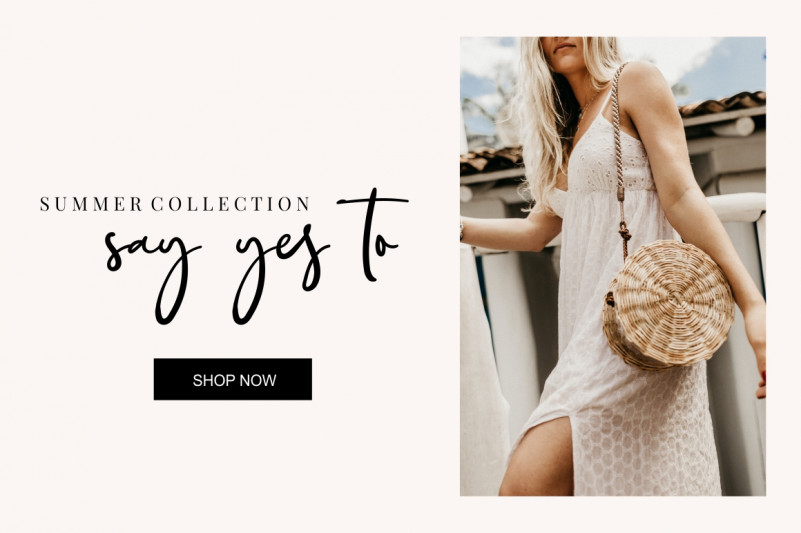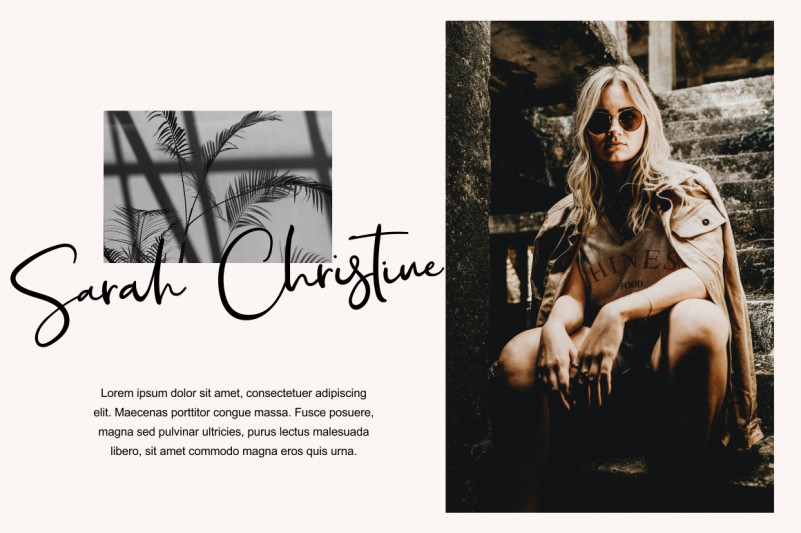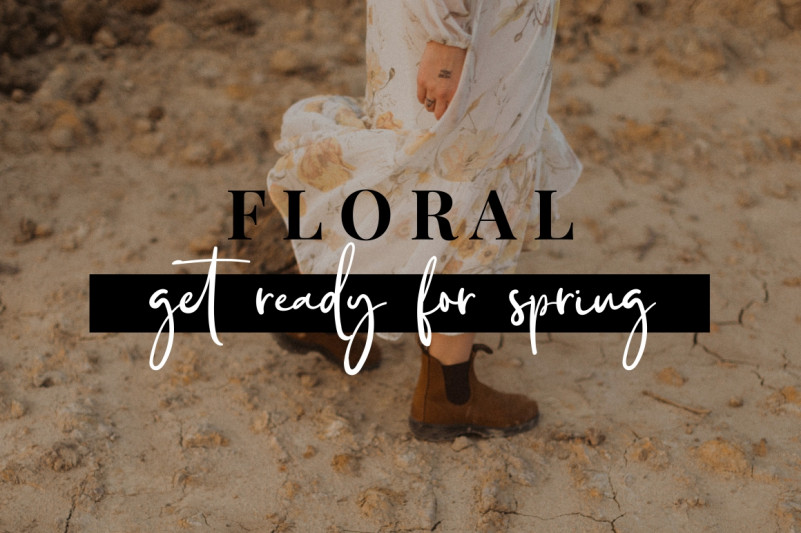
Rhodium Script Font
This is stylish signature font with handwritten and sophisticated flows. Perfect for elegant branding projects, greeting cards, packaging, social media, logo design and of course, wedding invitations.